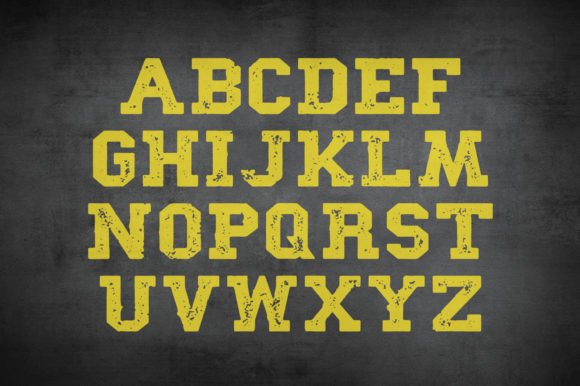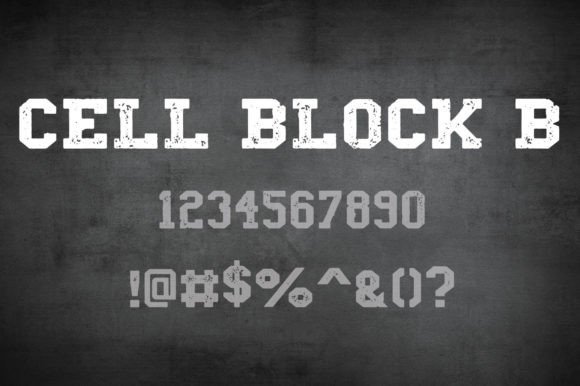
Cell Block B Font
This bold eroded slab serif display font was crafted to appear distressed and is perfect for vintage designs and posters. Add it confidently to your projects and you will be amazed by the outcome generated!